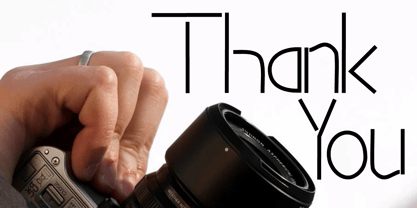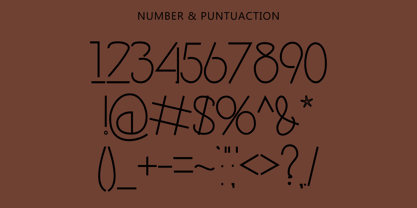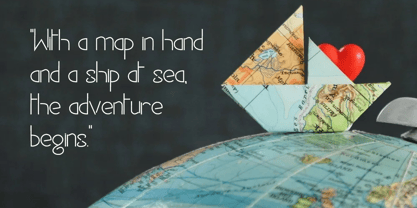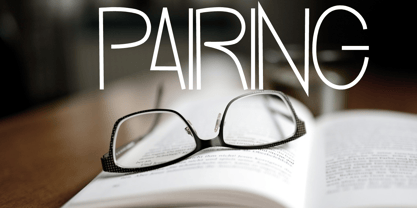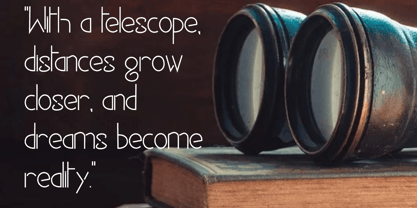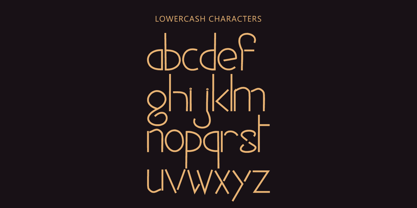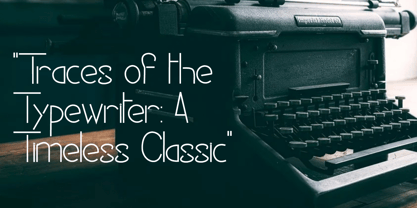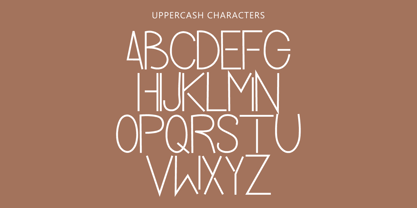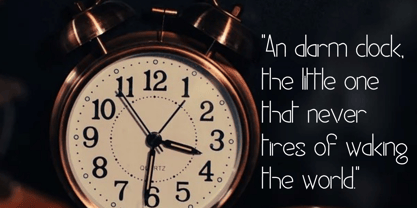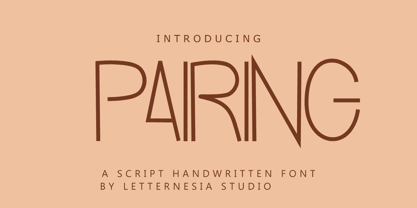
Pairing
Die Schriftfamilie Pairing wurde von Ta Siyo entworfen und von Letternesia studio veröffentlicht. Pairing enthält 1 Stile.
Pairing is a modern sans-serif font designed to be the perfect companion for serif-style fonts. With clean lines, balanced proportions, and a minimalist letterform, Pairing exudes professionalism and elegance. It is crafted to provide a harmonious contrast when paired with serif fonts, creating visually appealing and easy-to-read combinations.
Key characteristics of Pairing include:
Simple and Modern: The undecorated letterforms ensure a clean and contemporary appearance.
Versatile: Suitable for a variety of design needs, from editorial projects to branding.
Reader-Friendly: Designed with optimal spacing and proportions for comfortable readability.
Subtle Contrast: Perfectly complements serif fonts like Misterya, offering a balanced visual harmony.
Pairing is the ideal choice for designers seeking a sans-serif font that blends functionality with aesthetics.